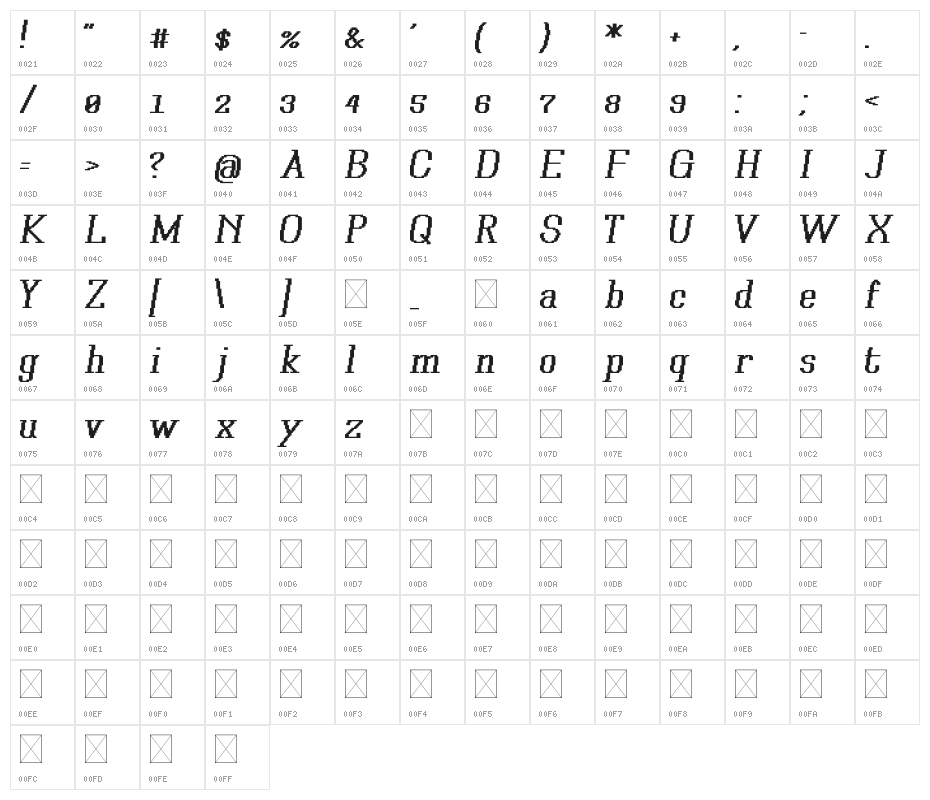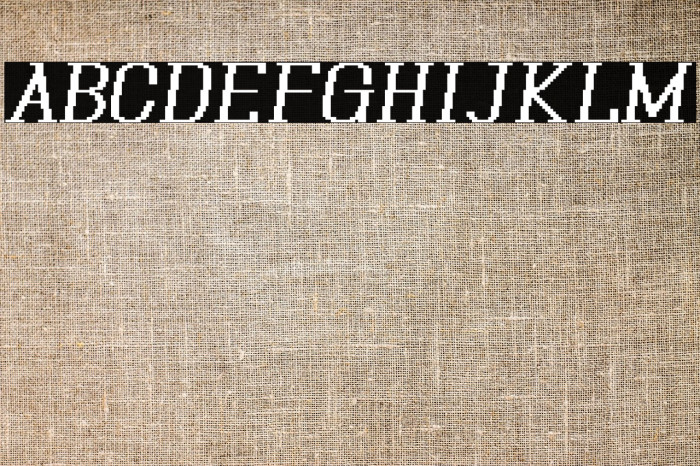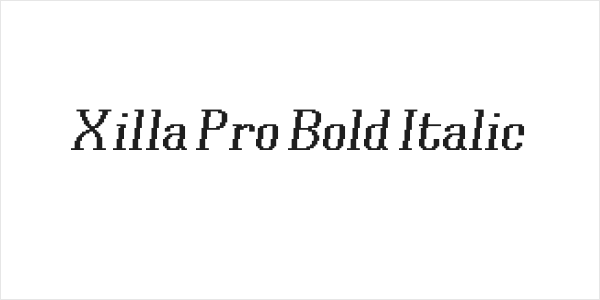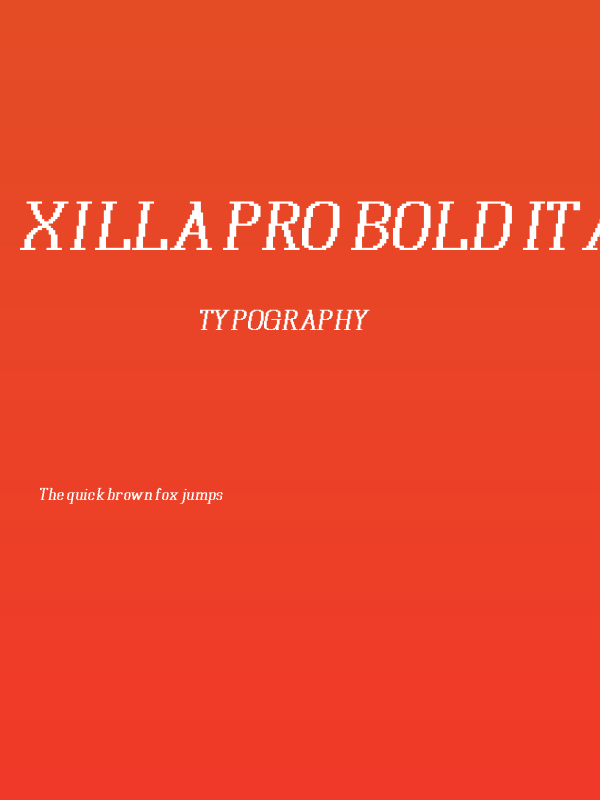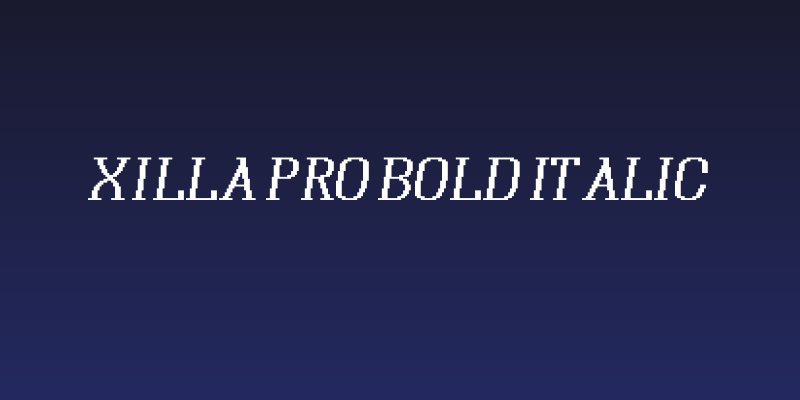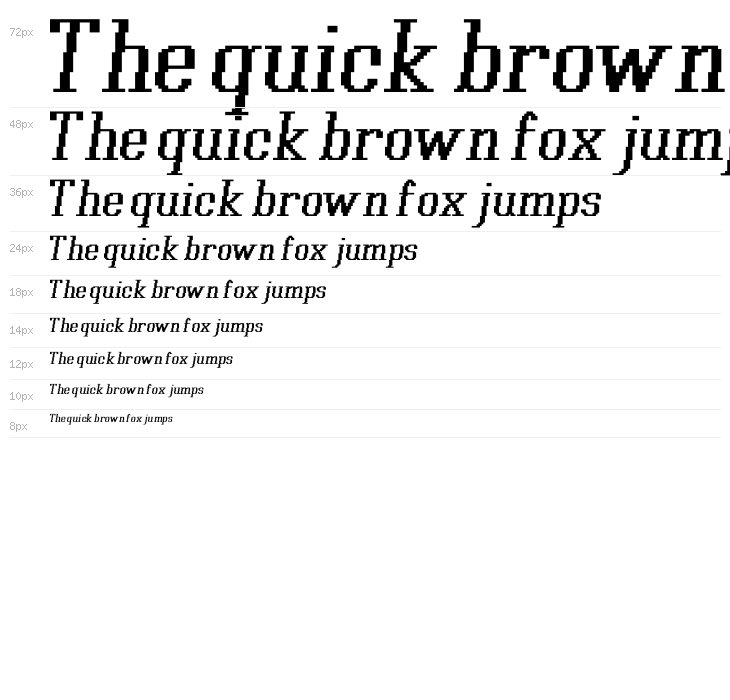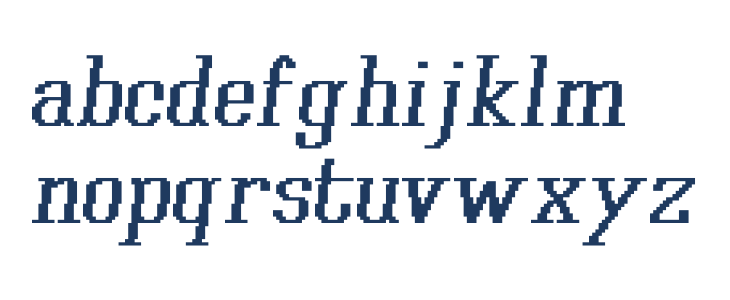
Xilla Pro Bold Italic Font
Xilla Pro Bold Italic Description
This font exhibits a bold and italicized style, characterized by its strong presence and dynamic slant. The uppercase letters are tall and slightly condensed, while the lowercase letters maintain a consistent flow with a slight forward tilt. The numerals are robust and align well with the overall bold aesthetic. Special characters are distinct and maintain the font's cohesive style. The strokes are consistent in thickness, providing a uniform appearance across all characters. This font's boldness and italic nature make it suitable for impactful designs.